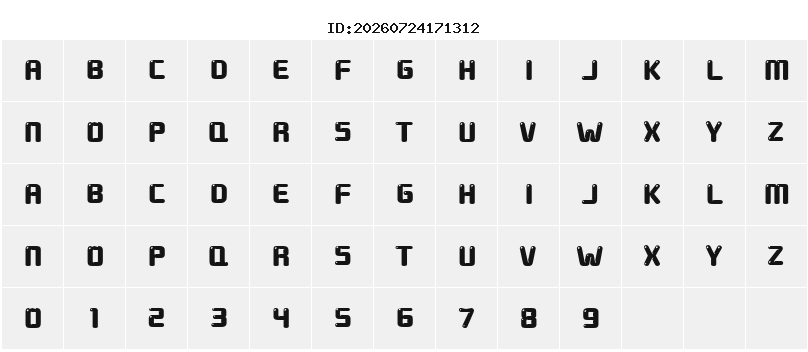
ground round Preview
• Font Name: ground round
• Full Font Name: ground round
• Version: Version 1.00 September 9, 2011, initial release
About ground round.ttf
ground round.ttf is a modern, elegant sans-serif font designed for ultimate readability and visual harmony. Perfect for branding, headlines, web design, and print materials.